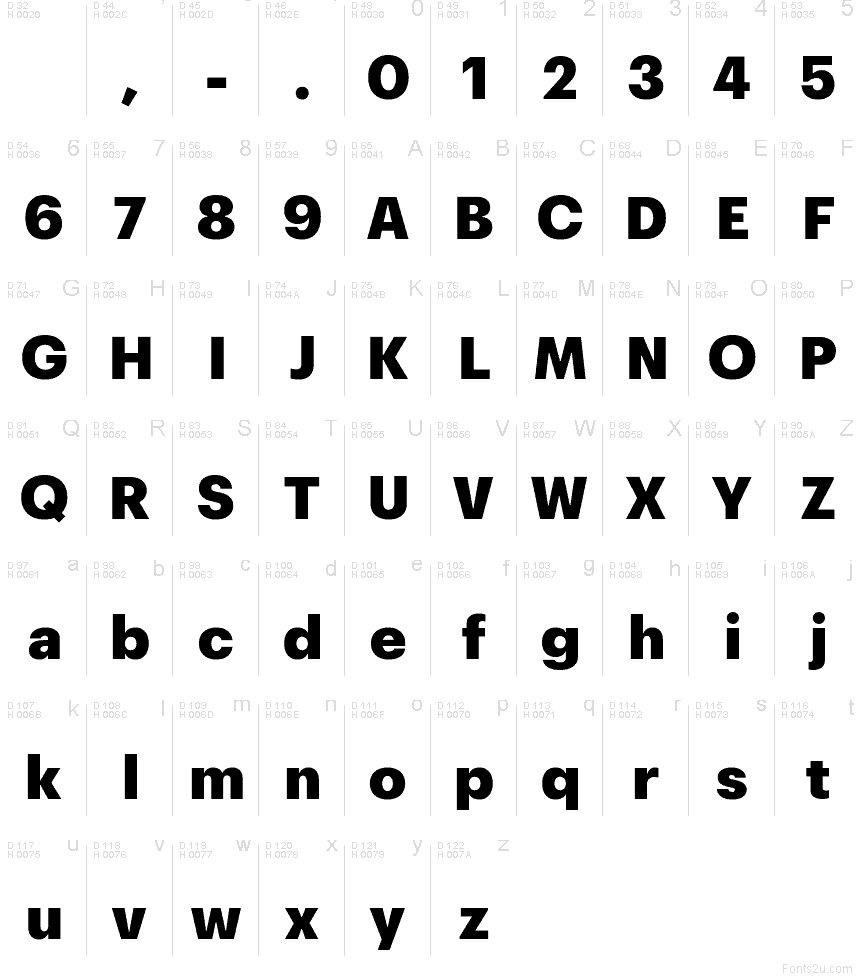
Encamp Test Black
Encamp Test Black font by Punchform is a free sans serif font that hits hard with thick, blocky shapes and a no-nonsense rhythm. Its heavy weight, tight spacing, and clean cuts make every word feel planted and unshakeable, like a solid sign painted in bold ink. Within the Encamp Test family, this Black style delivers maximum impact while staying legible and straightforward, so your message doesn’t get lost in decoration.
Using Encamp Test Black, headlines grab attention fast on posters, banners, packaging, app headers, and bold web hero text. This free font also works beautifully for flyeral text, event graphics, and logo wordmarks where you need serious presence in just a few characters. Try pairing it with a light, neutral sans for body copy and keep Encamp Test Black large with generous margins so its dense forms can breathe.